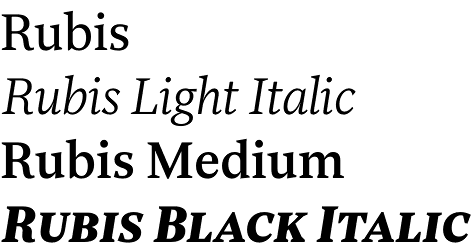
Rubis font
In the last two years we have been impatiently waiting for a new release by Nico Inosanto after the beautiful humanist sans serif Kleide and the formidable free Merry Scriptmas. And now for our delight, Nico released not one but two families at once – Rubis and its sans relative Rubiesque.
Rubis itself is a great looking serif font family that is most distinctive with the outstanding way it mixes classical calligraphic influences with the requirements of the modern digitalized era. It combines the contemporary practicality with a great amount of charm and elegance, a sharp and serious side with a romantic streak. In fact, the whole idea behind the creation of Rubis is to get a typeface with supreme legibility and fluidity that will be extremely suitable for longer texts. This is true especially for the Medium and Regular weights, whereas the Light and Black extremes are great for titles and headlines. All this makes Rubis the perfect typeface for editorial use.
When speaking about weights we should note that Rubis is supplied in 10 of them – Light, Regular, Medium, Bold and Black, all with their respective Italics. On top of that, this typeface is virtually packed with useful OpenType features like Ligatures, Fractions, Numerators, Denominators, Small Caps, Proportional Figures, Tabular Figures, Superscript, Ordinals, Scientific Inferiors, etc. The language support is formidable too with character sets for Western, Central and European languages.
Designer: Nico Inosanto
Publisher: Nootype